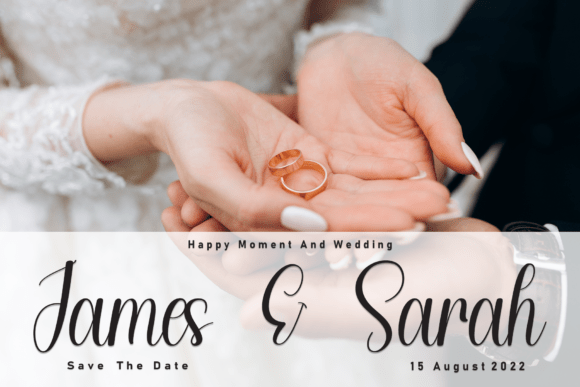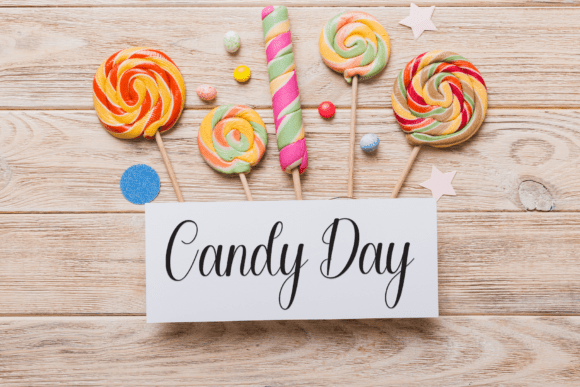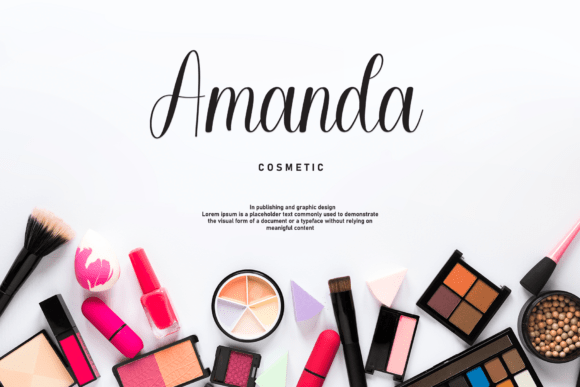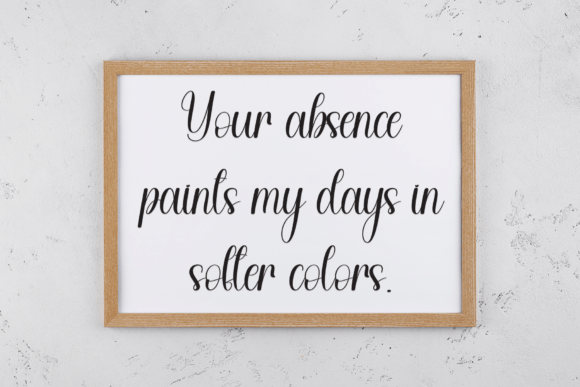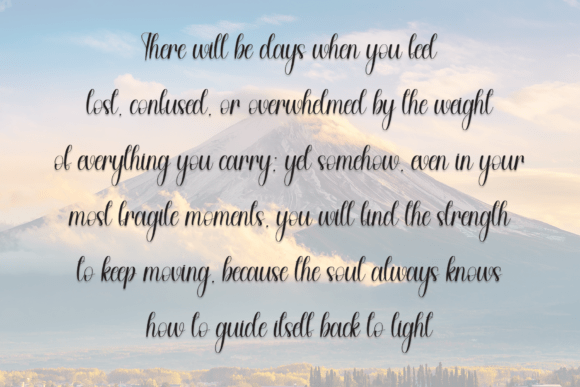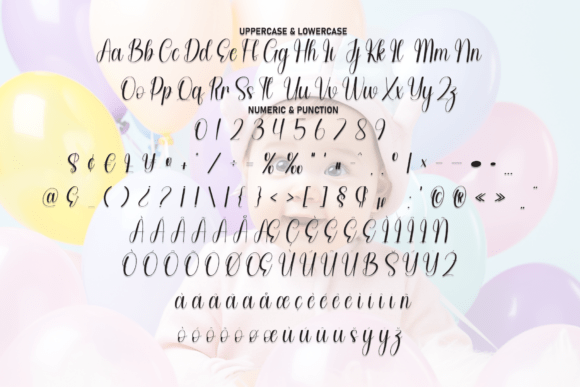
Designing for the Little Ones: The Joy of Babyday Font
Who hasn’t been moved to tears by a child’s first steps, a tender hug, or a giggling fit? These precious moments are the essence of parenthood, and they deserve to be celebrated in a way that’s just as sweet. For designers looking to capture the essence of early childhood, the Babyday Font offers a unique blend of modern calligraphy and playful innocence.
Characterized by its thick, rounded strokes and dramatic swashes, Babyday Font is more than just a font – it’s an invitation to creativity. Its bouncy baseline and rhythmic flow make it an exceptional choice for baby shower invitations, nursery wall art, children’s apparel branding, and soft-focus lifestyle photography overlays. Whether you’re a seasoned designer or just starting out, the Babyday Font is an invaluable tool for bringing warmth and celebration to your projects.
Babyday Font Key Features
- Font Family: Babyday Font is a unique, handwritten font designed for creating a playful and childlike atmosphere.
- Character Count: The font includes a vast character set, including uppercase and lowercase letters, numbers, and special characters.
- Unique Characteristics: The Babyday Font features a distinctive, cursive style with irregular letterforms and flourishes, making it perfect for adding a touch of whimsy to designs.
Babyday Font Review
Overall, I think the Babyday Font is a sweet and playful choice for children’s products or nursery designs. Here are a few things that work well:
- ✨ Unique and creative design: The font has a fun, hand-drawn feel that can add a lot of personality to a design.
- ✨ Versatility: The font can be used for a variety of applications, from titles and headings to body text and even decorative elements.
- ✨ Easy to read: Despite its playful appearance, the font is still easy to read and understand, making it a great choice for children’s products.
- ⚠️ Limited flexibility: While the font can be used for a variety of applications, it may not be the best choice for more formal or professional designs.
- ⚠️ May not be suitable for small sizes: The font’s playful design can make it difficult to read when used in small sizes or at a distance.
Overall, I think the Babyday Font is a great choice for designers who need a fun and playful font for children’s products or nursery designs. However, it may not be the best choice for more formal or professional designs.
Getting the Most Out of Babyday Font
To get the most out of the Babyday Font, try combining it with other playful fonts and illustrations. Experiment with different font sizes and styles to add visual interest to your design.
The Babyday Font is ideal for children’s products, nursery decor, and educational materials. It’s also great for adding a playful touch to wedding invitations and party decorations.
Q: What is the recommended font size and line height for optimal readability with Babyday Font?
For optimal readability, we recommend using a font size between 12pt and 24pt, and a line height of 1.2 to 1.5 times the font size. This will ensure that the text is clear and easy to read, while also maintaining the unique aesthetic of the Babyday Font.